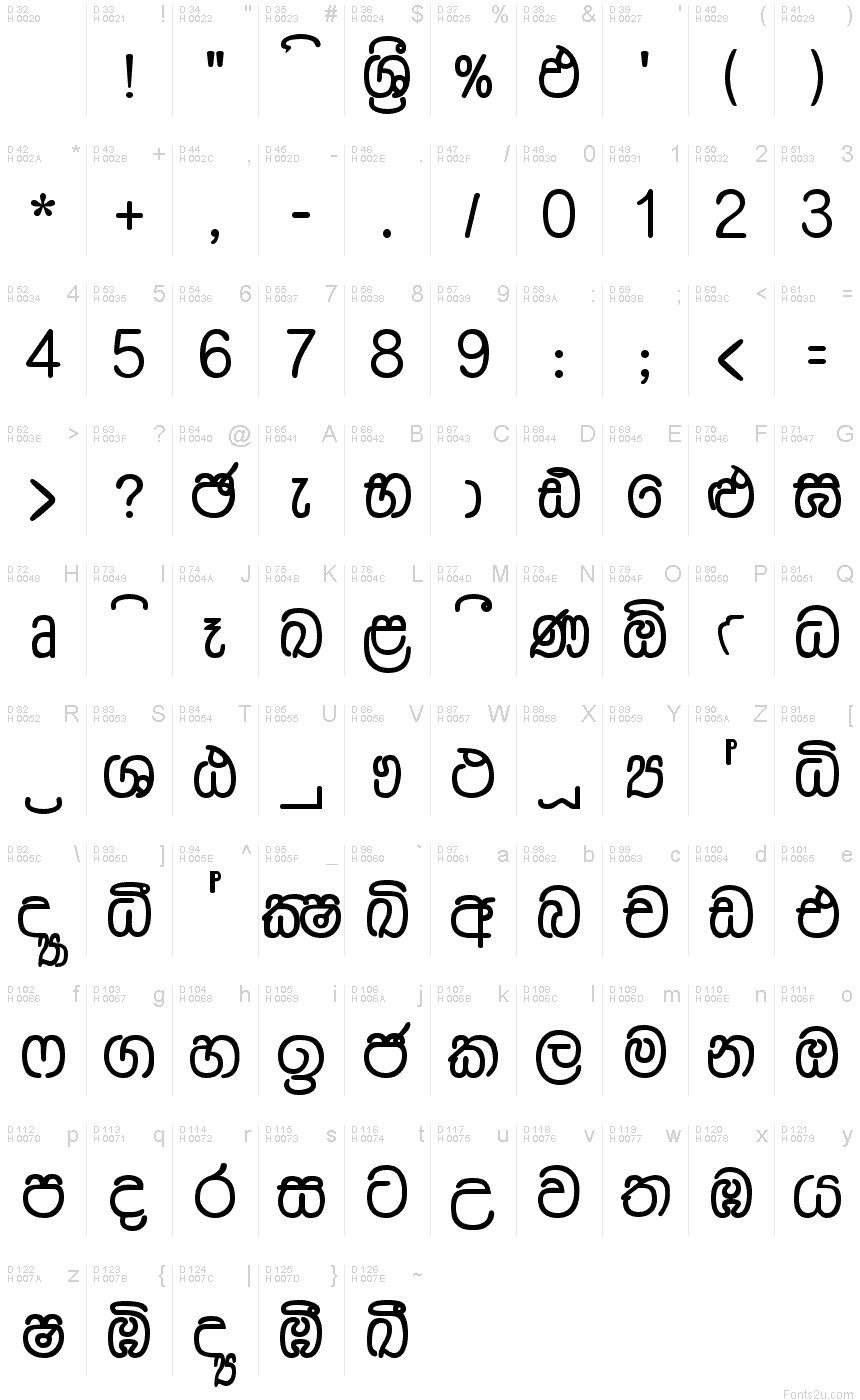
Dusharnbi
Dusharnbi font by Rich Gast is a free Sinhala script font that captures the flowing rhythm of handwritten Sri Lankan lettering while staying clean and legible. Rounded strokes, generous loops, and open counters give each word a warm, organic feel, yet the weight is steady enough for smooth reading on screens and in print. It’s a great way to bring authentic Sinhala forms into bilingual projects without sacrificing clarity.
Using Dusharnbi, this free font becomes a natural fit for cultural posters, festival branding, restaurant menus, travel guides, educational materials, and packaging that calls out Sinhala text with personality. The calm, even texture of the typeface holds up well at medium sizes, while larger settings show off its graceful curves. For multilingual layouts, pair Dusharnbi with a simple Latin sans serif to keep hierarchy clear and let the Sinhala script stand out.